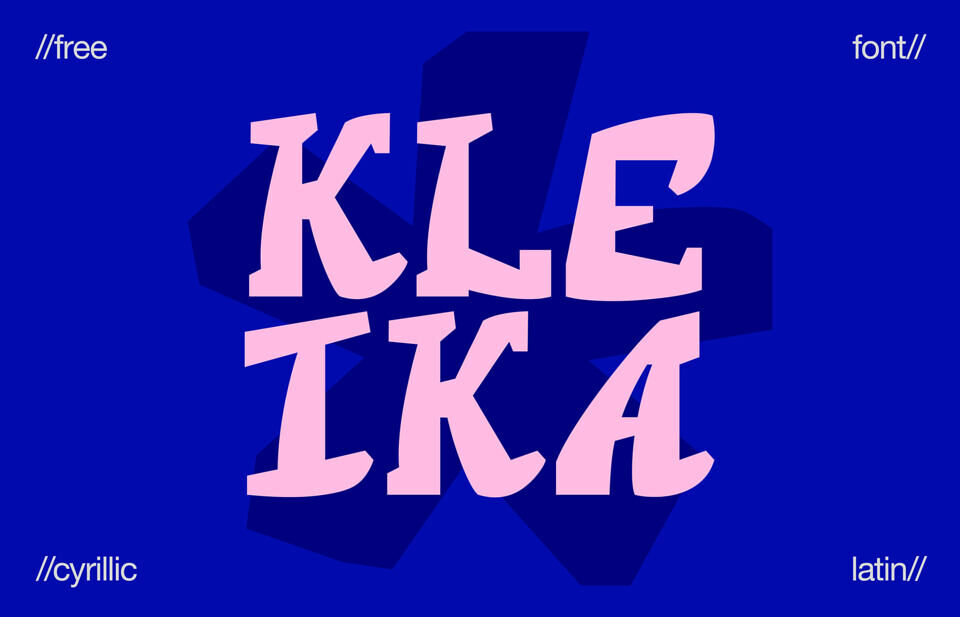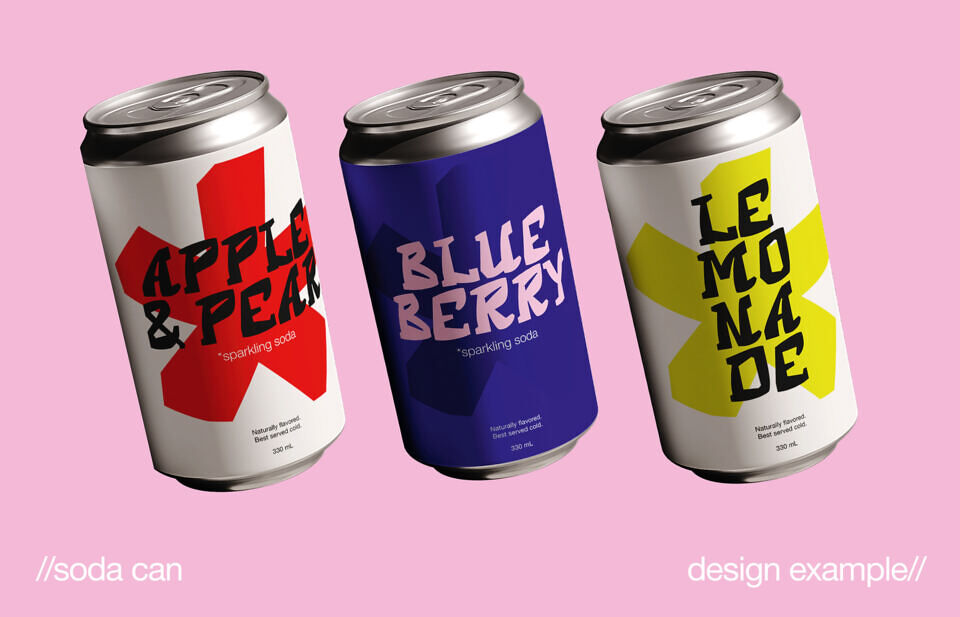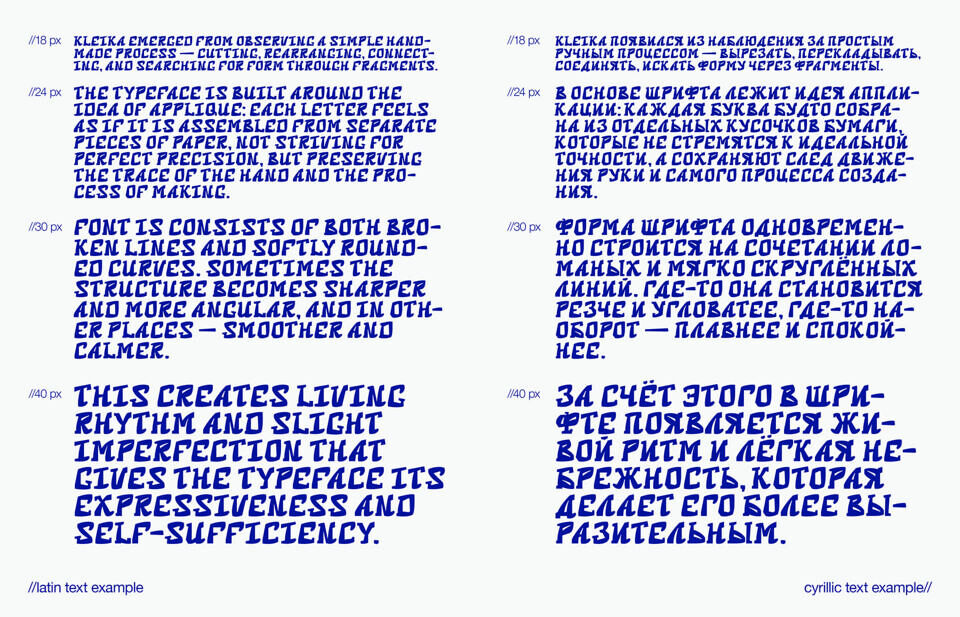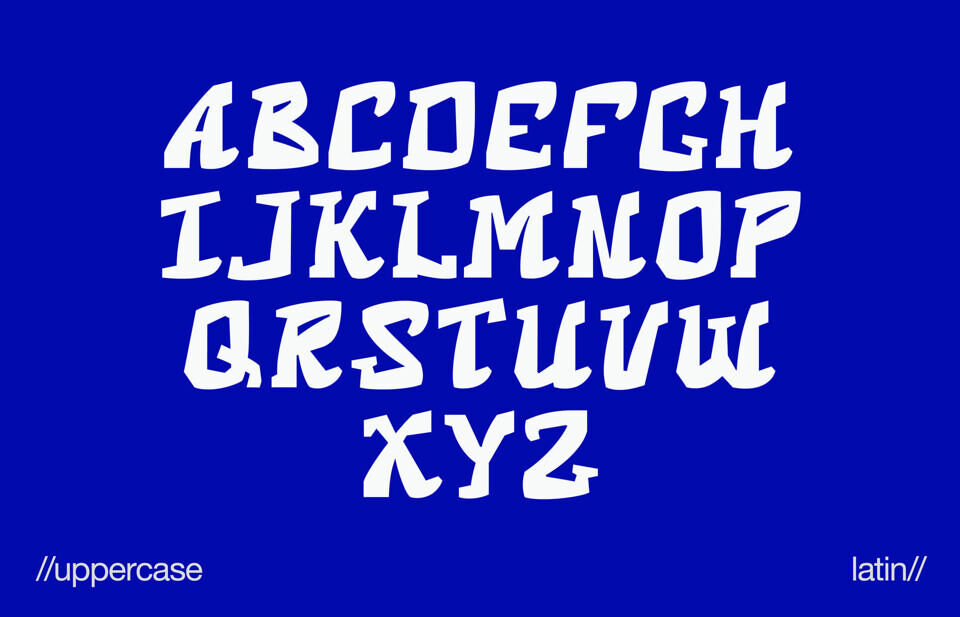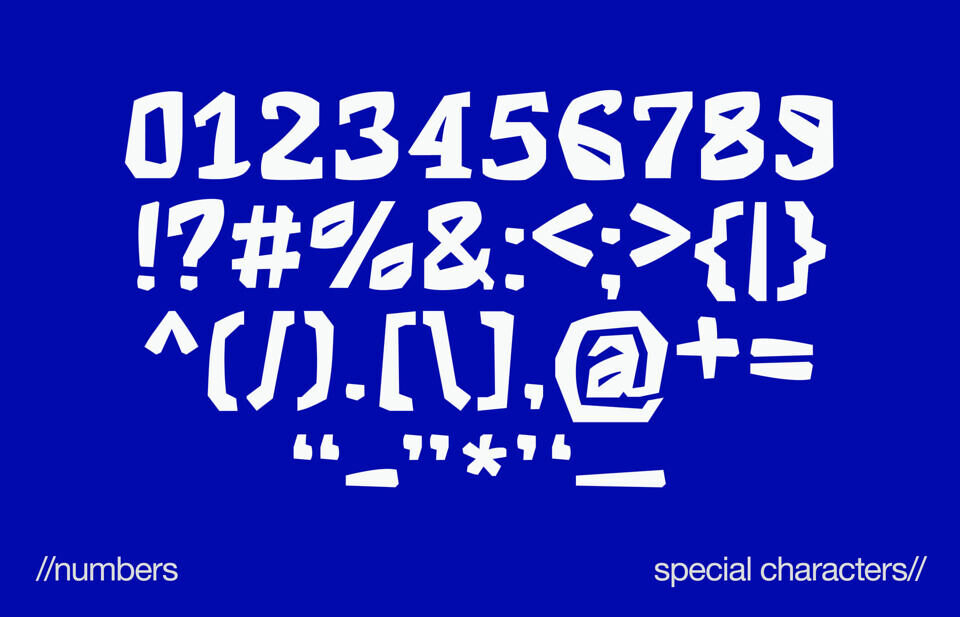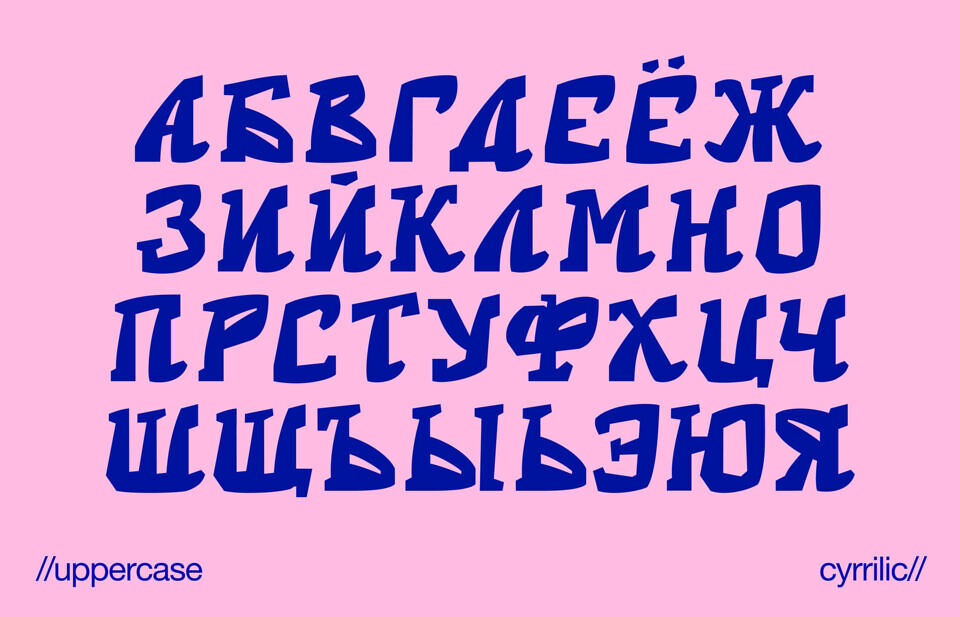
Kleika Font
KLEIKA is a display typeface inspired by collage techniques, hand-assembled forms, and the aesthetics of imperfection. Its letterforms appear to be constructed from individual paper fragments, combining angular cuts with rounded shapes, while slanted elements create a sense of movement and organic rhythm.
The typeface preserves traces of the making process — cutting, shifting, and gluing — which gives it a tactile, expressive, and emotionally engaging character.